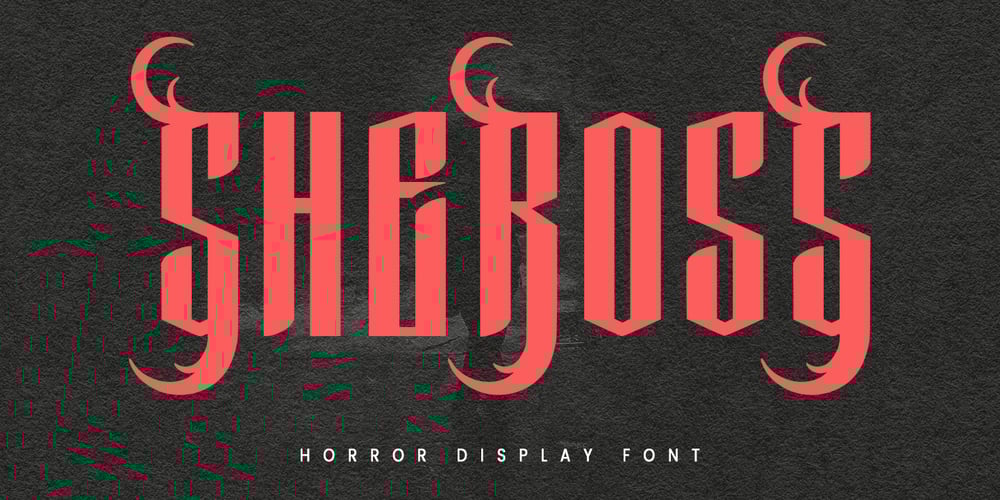
MC Sheross Font Family was designed by Gilang Maulana and published by Maulana Creative. MC Sheross contains 1 styles and family package options. Sheross is a futuristic horror display font. With bold stroke, fun character with some of alternate. To give you an extra creative work, Sheross Display font support multilingual more than 100+ language. This font is good for logo design, Social media, Movie Titles, Books Titles, a short text even a long text letter and good for your secondary text font with script or signature typeface. Make a stunning work with Sheross is a futuristic horror display font.Thanks for use this font.Maulana Creative.